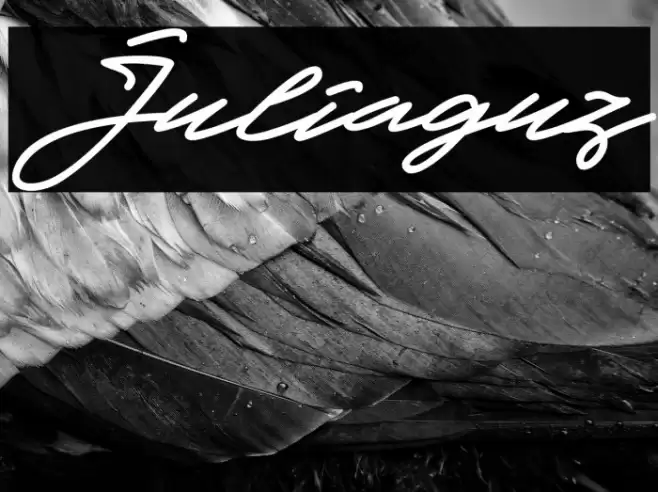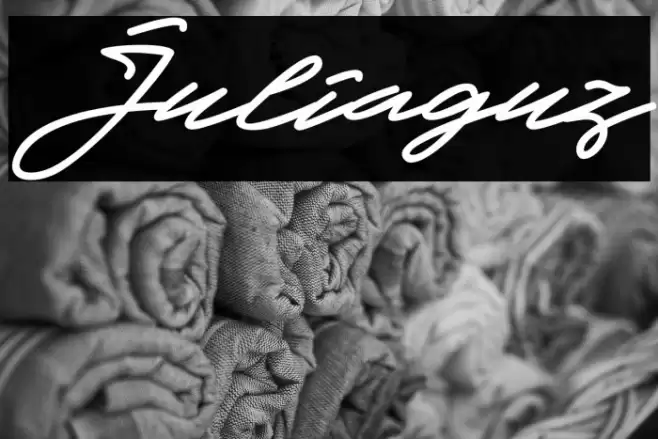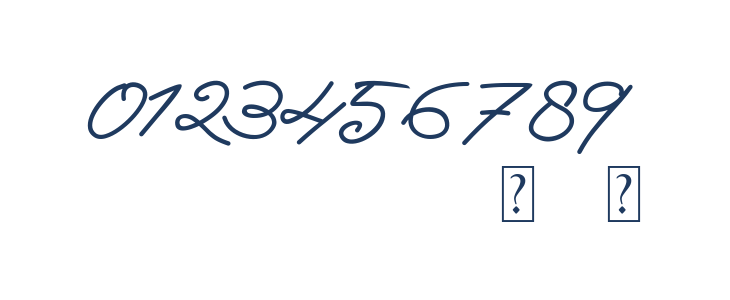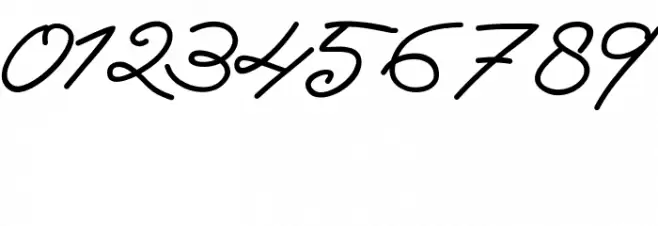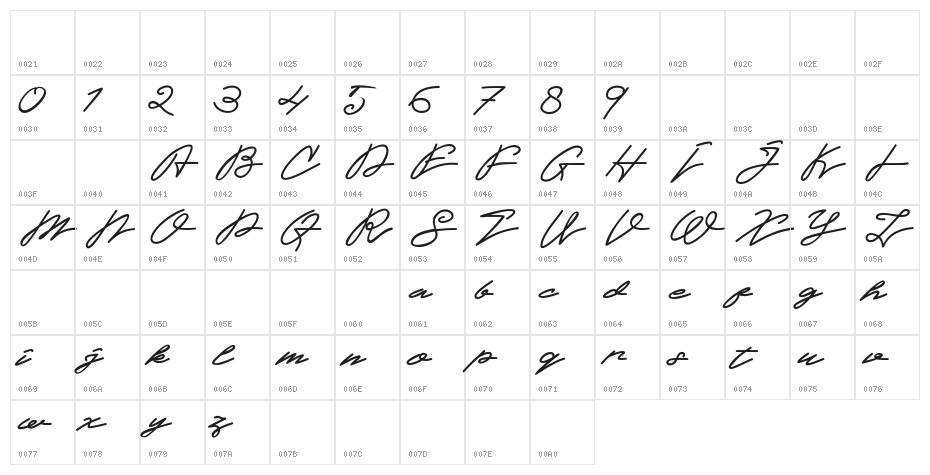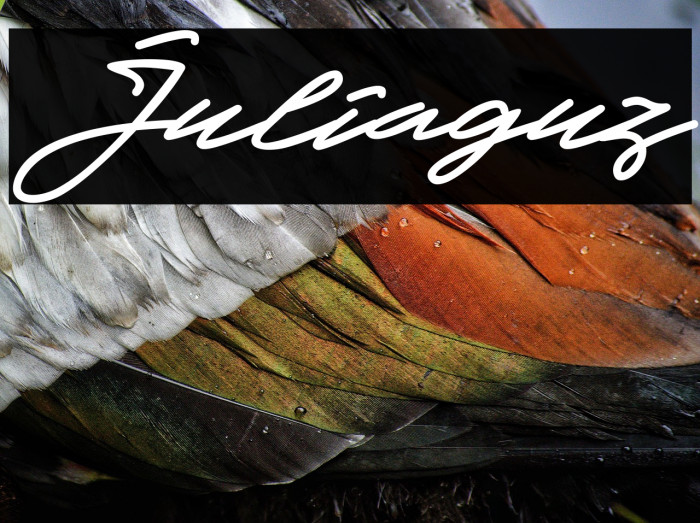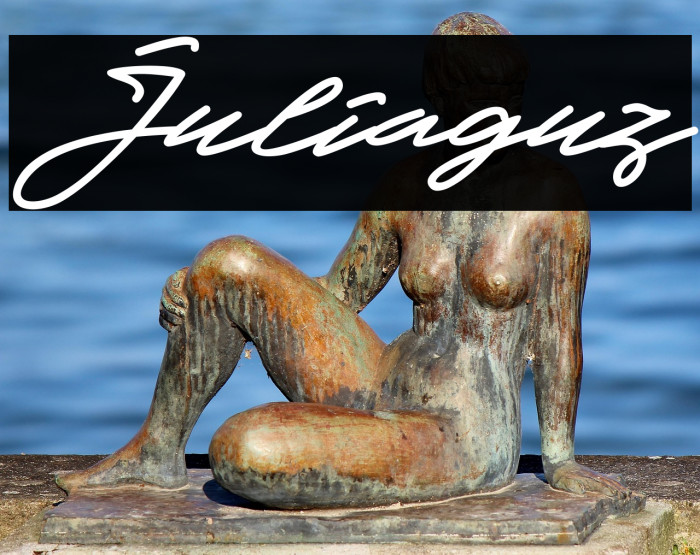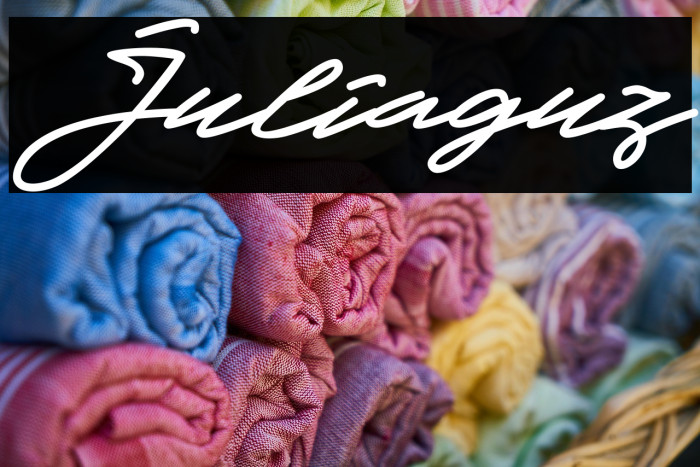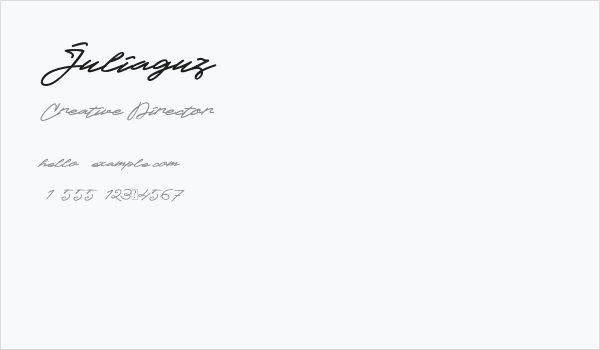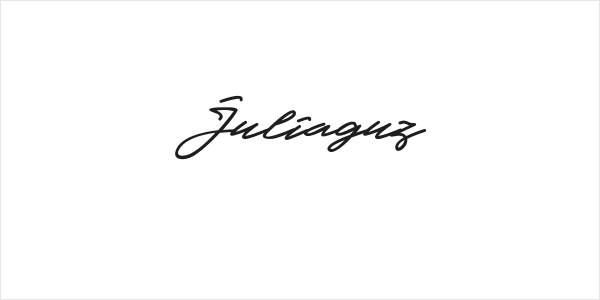
Juliaguz Font
Juliaguz Description
This font features a flowing, cursive style with elegant, interconnected letters that mimic the fluidity of handwriting. The uppercase letters are slightly more ornate, with flourishes that add a touch of sophistication. The lowercase letters maintain a consistent slant and are designed to connect seamlessly, enhancing the script's natural flow. Numbers are styled to match the cursive theme, maintaining readability while adding a decorative flair. This font is ideal for projects that require a personal, handwritten touch, such as invitations, greeting cards, or branding materials.
A cursive, handwritten-style font with elegant, flowing characters from Regular fonts.
- Proposed Projects: Ideal for wedding invitations, personal branding, greeting cards, and elegant stationery.
- Character Spacing: Tight
- Overall Style: Elegant, Handwritten
- Use Case: Logos, Invitations, Personal Branding